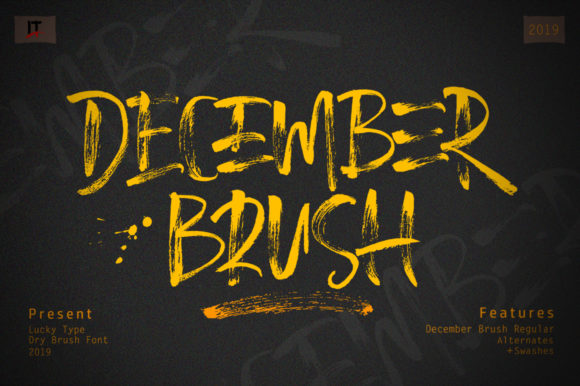
Introducing December Brush Font: The Ultimate Handwritten Font for Your Design Projects
Are you looking for a font that can add a touch of personality and authenticity to your design projects? Look no further than December Brush Font. This natural handwritten font is full of energy and charm, making it the perfect choice for designers who want to create unique and standout designs.
The Story Behind December Brush Font
December Brush Font is a carefully crafted font that is designed to mimic the look and feel of handwritten text. The font is the brainchild of a team of skilled designers who wanted to create a font that would capture the essence of natural handwriting. With its unique charm and character, December Brush Font is sure to inspire designers and help them create designs that stand out from the crowd.
What Makes December Brush Font So Special?
So, what makes December Brush Font so special? For starters, the font is incredibly versatile and can be used for a wide range of design projects, from branding and advertising to packaging and web design. The font is also highly legible, making it easy to read and understand, even at small sizes.
Another thing that sets December Brush Font apart is its unique charm and character. The font has a natural, handwritten feel that is impossible to replicate with generic fonts. This makes it perfect for designers who want to add a personal touch to their designs and create something truly unique.
The Benefits of Using December Brush Font
There are many benefits to using December Brush Font in your design projects. Here are just a few:
- Unique and Standout Designs: With December Brush Font, you can create designs that stand out from the crowd and grab the attention of your audience.
- Authentic and Natural Look: The font has a natural, handwritten feel that adds a touch of authenticity to your designs.
- Highly Legible: The font is highly legible, making it easy to read and understand, even at small sizes.
- Versatile: December Brush Font can be used for a wide range of design projects, from branding and advertising to packaging and web design.
How to Use December Brush Font in Your Design Projects
Using December Brush Font in your design projects is easy. Here are a few tips to get you started:
- Pair it with Other Fonts: December Brush Font looks great when paired with other fonts. Try pairing it with a clean sans-serif font for a bold and modern look.
- Use it for Headings and Titles: The font is perfect for headings and titles, where you want to make a bold statement and grab the attention of your audience.
- Experiment with Colors: December Brush Font looks great in a variety of colors. Experiment with different colors to find the one that works best for your design.
Tips and Tricks for Getting the Most Out of December Brush Font
Here are a few tips and tricks for getting the most out of December Brush Font:
- Pay Attention to Kerning: Make sure to pay attention to kerning when using December Brush Font. Proper kerning can make a big difference in the overall look and feel of your design.
- Use it in Combination with Images: December Brush Font looks great when used in combination with images. Try using it to add text to your images and create a bold and eye-catching design.
- Experiment with Different Sizes: The font looks great at a variety of sizes. Experiment with different sizes to find the one that works best for your design.
| Font Name | December Brush Font |
| Author | luckytype.font |
In conclusion, December Brush Font is a natural handwritten font that is full of energy and authenticity. With its unique charm and character, it’s the perfect choice for designers who want to create unique and standout designs. Whether you’re working on a branding project, creating a website, or designing a brochure, December Brush Font is sure to inspire you and help you create a design that stands out from the crowd.
- What is December Brush Font? December Brush Font is a natural handwritten font that is full of energy and authenticity.
- What makes December Brush Font so special? The font has a unique charm and character that sets it apart from generic fonts.
- What are the benefits of using December Brush Font? The font is highly versatile, authentic, and natural-looking, making it perfect for a wide range of design projects.
- How do I use December Brush Font in my design projects? You can use December Brush Font in a variety of ways, from pairing it with other fonts to using it for headings and titles.